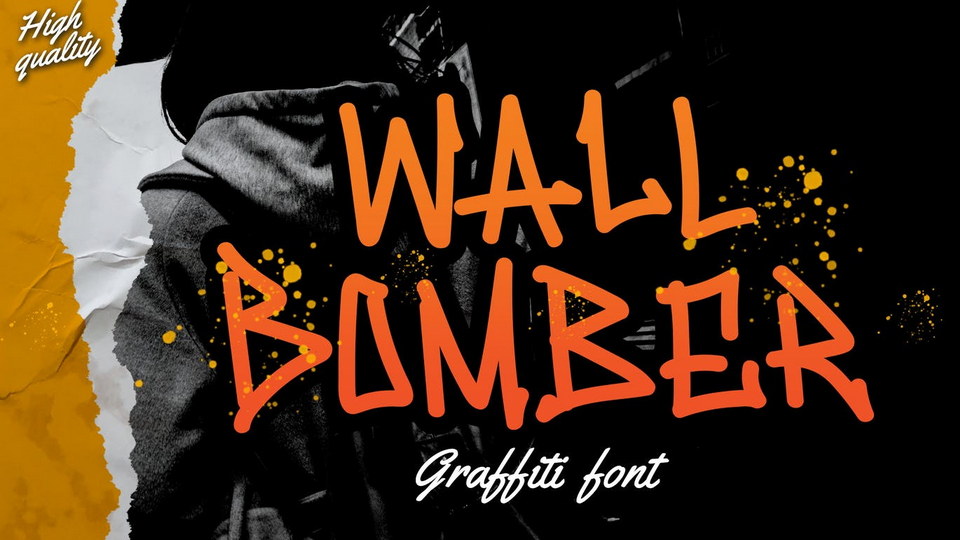
Download Wall Bomber font, an urban graffiti typeface. The wall needs to be bombed by art. and Wall Bomber is here to create that. It will make your art pop and stand out from the rest of the other artist’s graffiti.